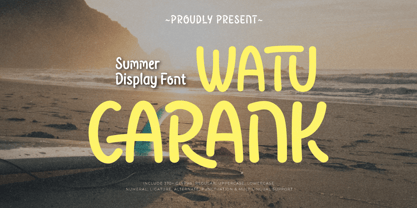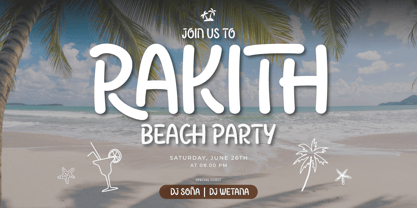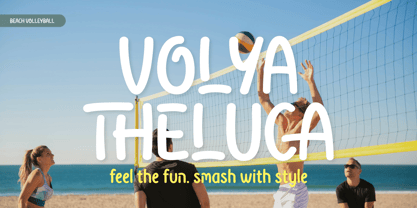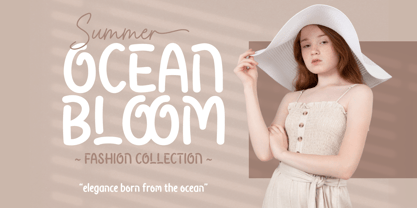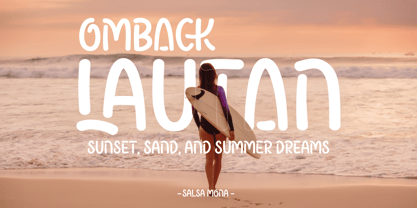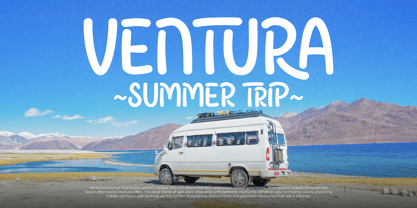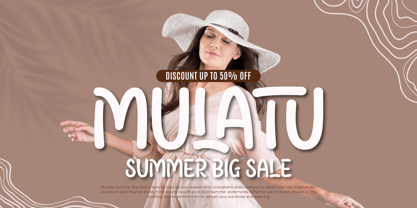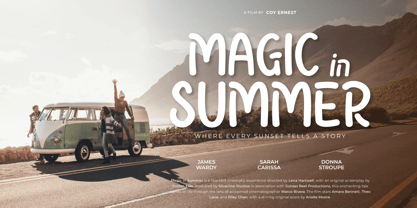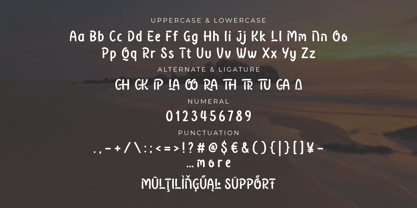
Watu Carank
The Watu Carank Font Family was designed by Rozikan and published by Twinletter. Watu Carank contains 1 styles. More about this family
Say hello to sunshine with Watu Carank, a cheerful display summer font that captures the warmth and vibrance of the tropical season. With its playful curves, breezy shapes, and relaxed personality, Watu Carank is perfect for everything from summer event posters, beach party flyers, travel blogs, to juice bar branding and vibrant product packaging.
This font brings a joyful energy that evokes palm trees, ocean waves, and sunny skies. Its casual and handwritten-inspired strokes add a touch of friendliness and fun, making your design feel approachable and full of life. Whether you're designing for a summer campaign or crafting a vacation-themed visual, Watu Carank delivers the perfect splash of sunshine.